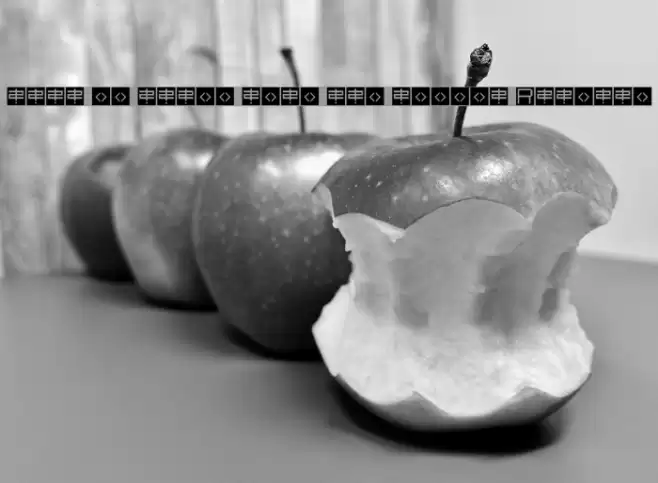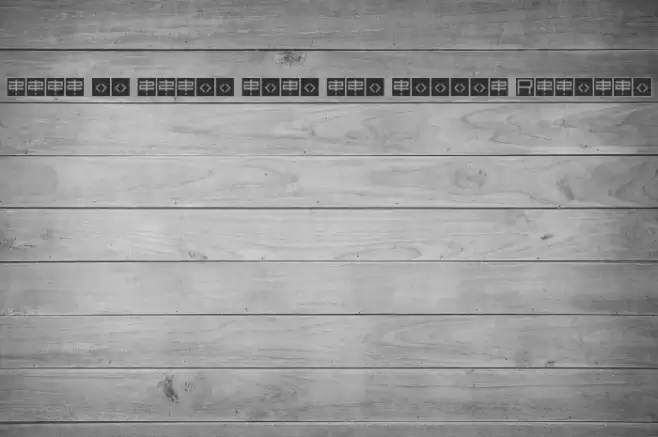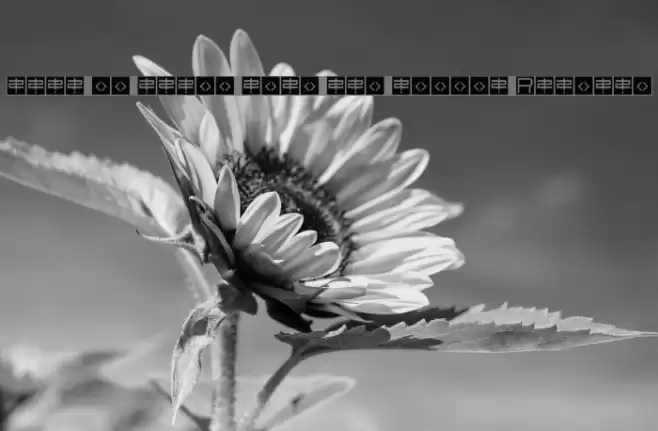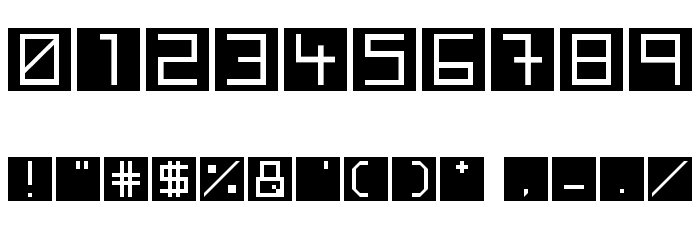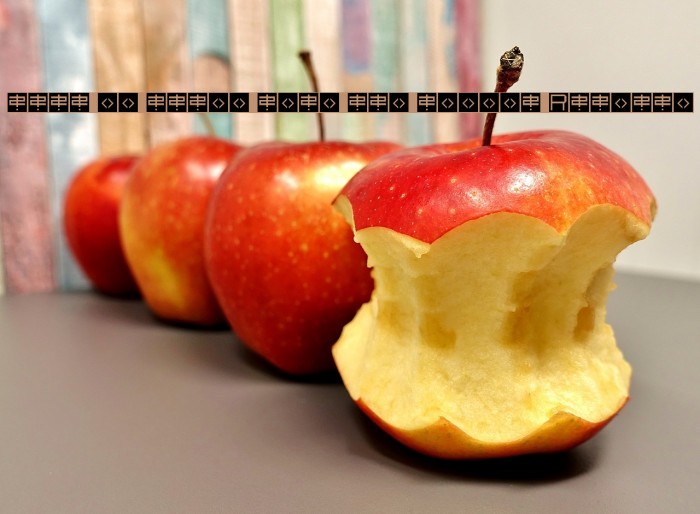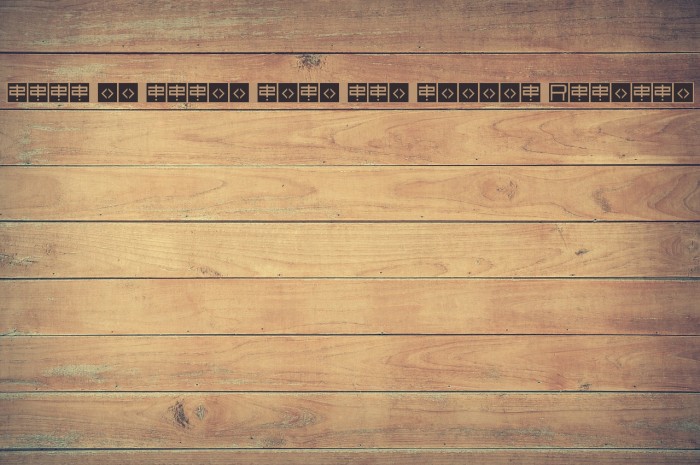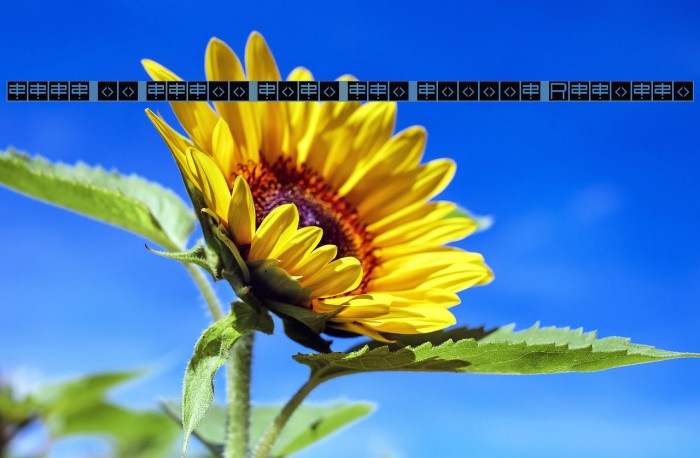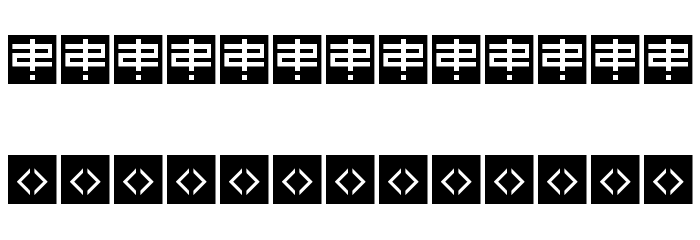
back to heavy coat fat ground Regular Font
back to heavy coat fat ground Regular Description
This font features a bold, geometric design with a strong emphasis on square and rectangular shapes. The characters are enclosed within thick, uniform borders, creating a striking and modern appearance. The uppercase letters are particularly prominent, with a consistent height and width that enhances readability. The numerals and special characters maintain the same bold style, ensuring a cohesive look across all text. This font's unique style is well-suited for digital displays and modern design projects, offering a futuristic and tech-inspired aesthetic.
A bold, geometric font with strong square shapes and uniform borders.
- Proposed Projects: Ideal for digital displays, tech branding, futuristic posters, and modern graphic design projects.